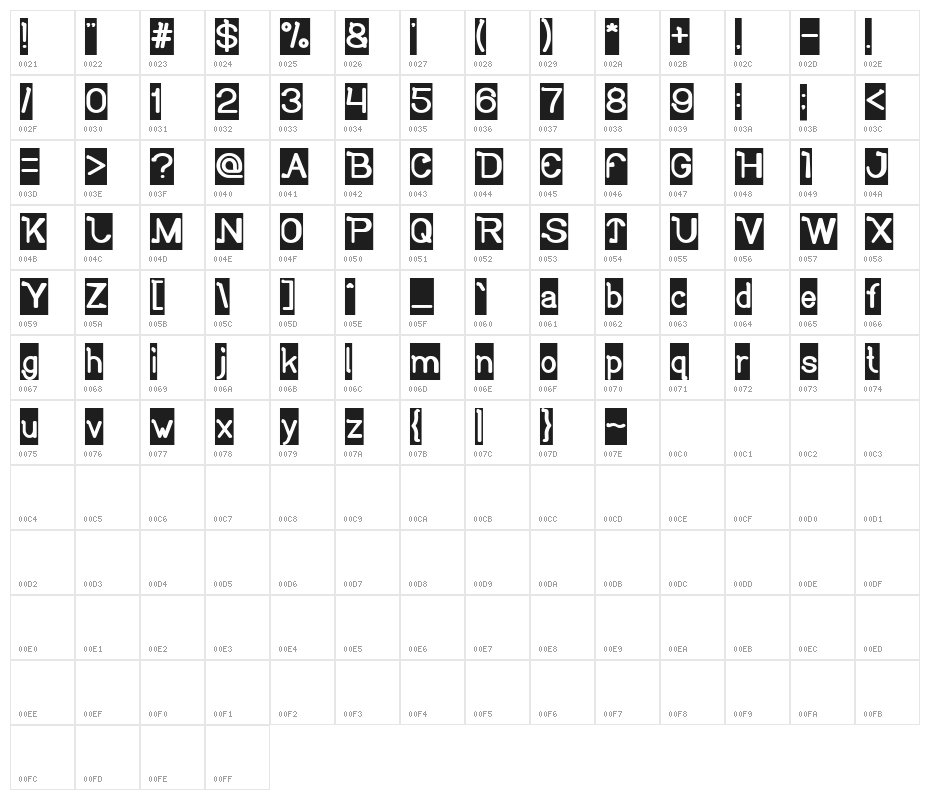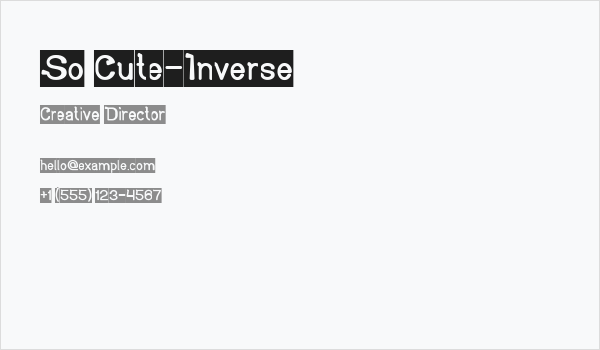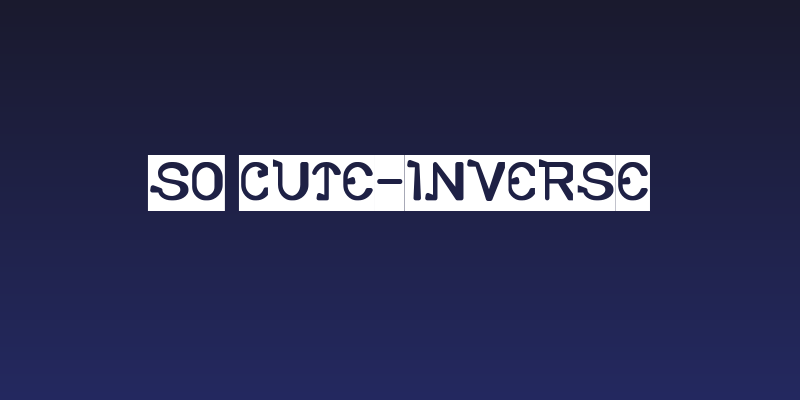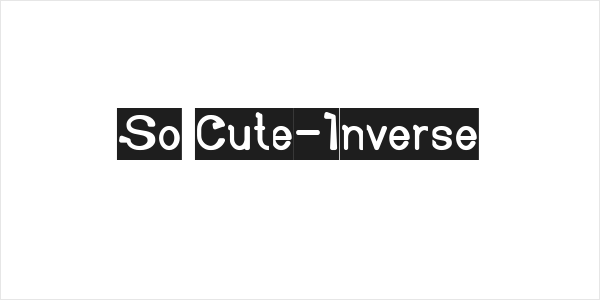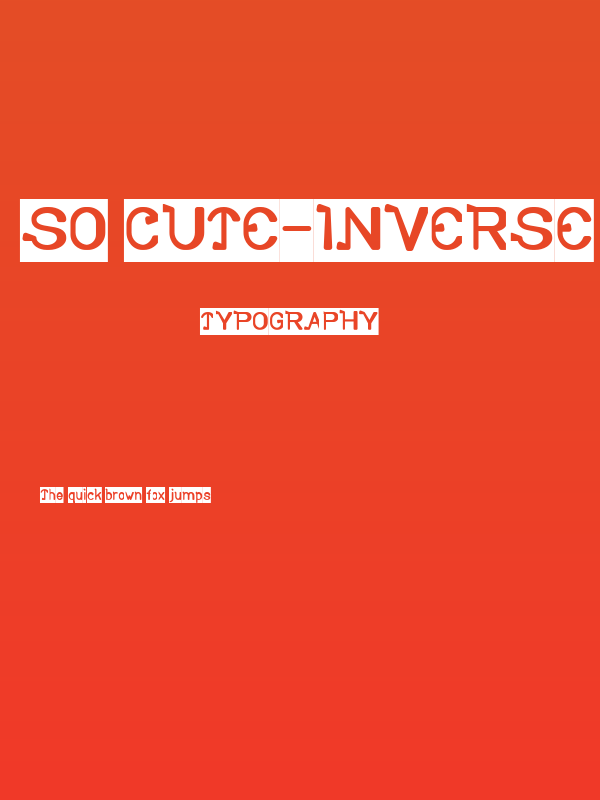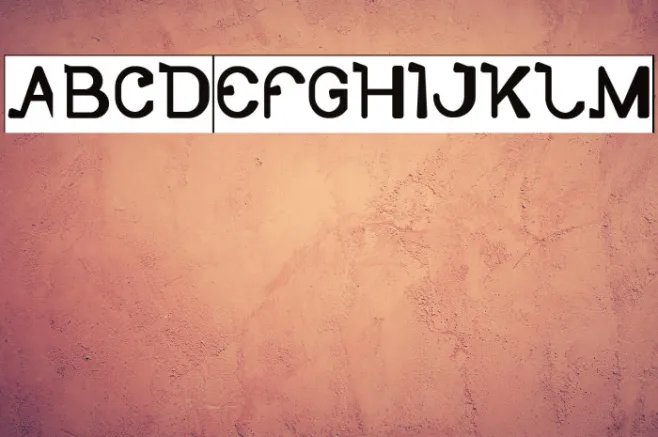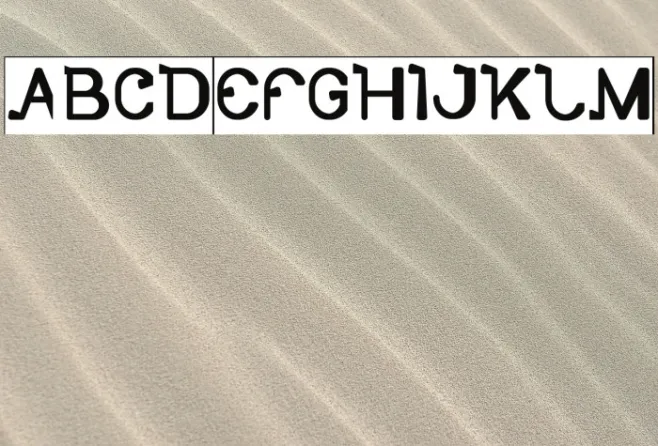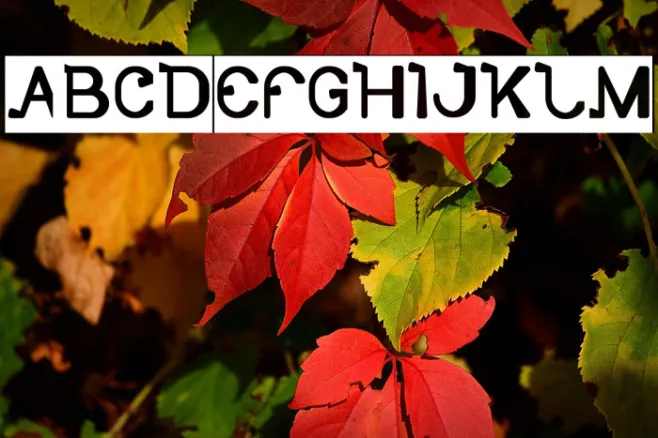
So Cute-Inverse Font
So Cute-Inverse Description
This playful and whimsical font features a unique blend of rounded and angular elements, creating a distinctive and eye-catching appearance. The uppercase letters are bold and prominent, with quirky serifs that add a touch of fun. The lowercase letters maintain a consistent style, with smooth curves and a friendly demeanor. Numbers are clear and easily readable, while special characters retain the font's playful essence. The overall design is both modern and approachable, making it suitable for a variety of creative projects.
| Overall Style | Playful, Modern |
| Proposed Projects | Ideal for children's books, playful branding, greeting cards, and creative posters. |